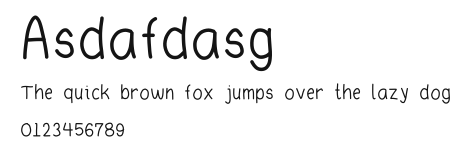
About Asdafdasg.ttf
Asdafdasg.ttf is a modern, elegant sans-serif font designed for ultimate readability and visual harmony. Perfect for branding, headlines, web design, and print materials.